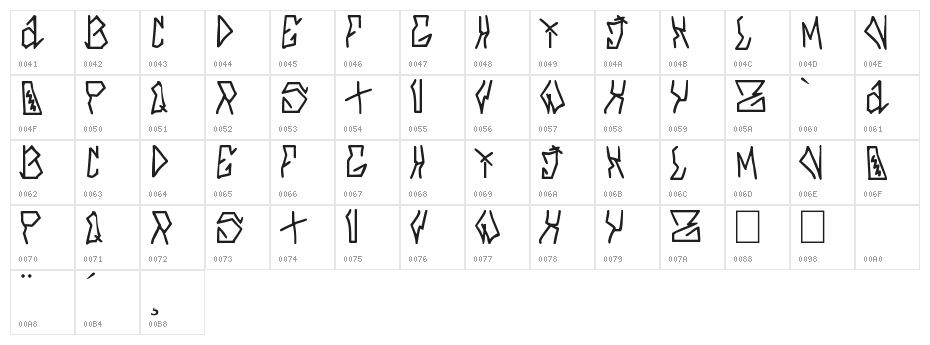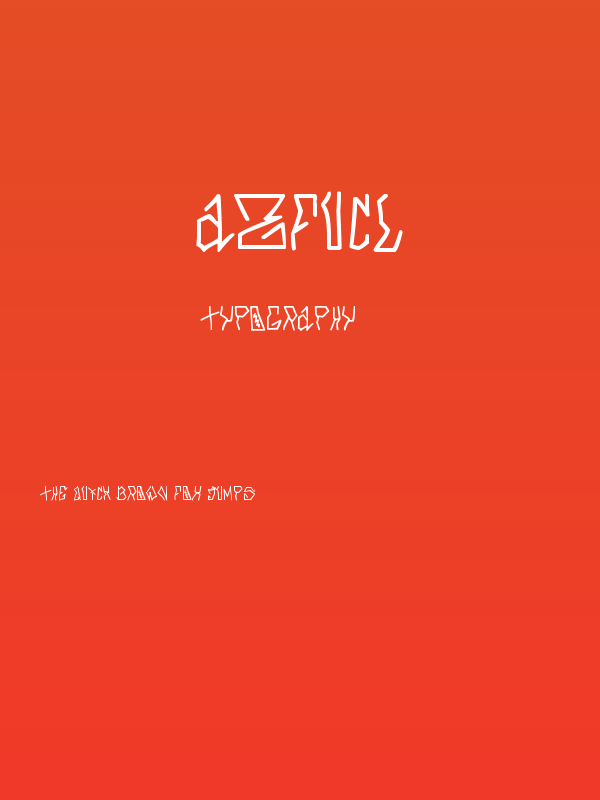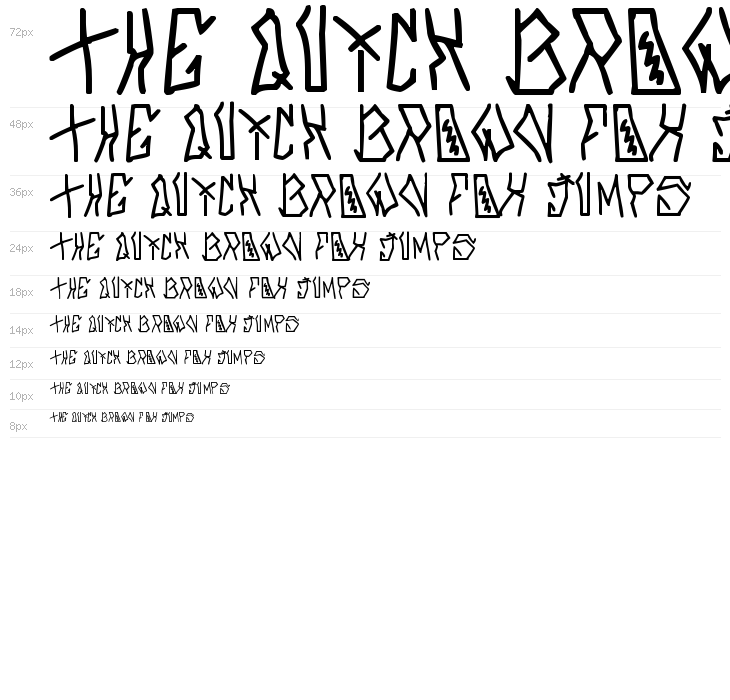
azfucl Font
azfucl Description
This font features a highly decorative and angular style, reminiscent of ancient runes or tribal markings. Each character is uniquely stylized with sharp edges and geometric forms, creating a sense of mystery and intrigue. The uppercase and lowercase letters maintain a consistent theme, with some letters incorporating additional lines or embellishments that enhance their visual complexity. The numbers and special characters follow the same design principles, ensuring a cohesive look across all glyphs. This font is ideal for projects that require a bold and unconventional aesthetic, such as fantasy-themed designs, video game graphics, or unique branding materials.
| Proposed Projects | Fantasy-themed designs, video game graphics, unique branding materials. |